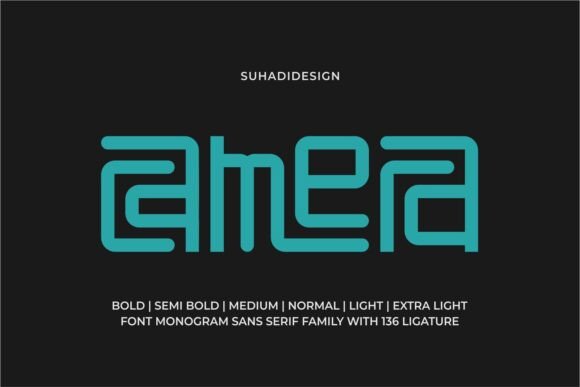
Introducing Camera Font: The Modern Sans Serif Font for Stunning Designs
In the world of typography, fonts play a crucial role in making or breaking a design. A well-chosen font can elevate a design from ordinary to extraordinary, while a poorly chosen one can have the opposite effect. For designers, artists, and brands looking for a modern and stylish font to take their designs to the next level, Camera Font is an excellent choice. In this article, we’ll explore the features, benefits, and uses of Camera Font, a modern sans serif font with 136 ligatures, presented in a modern monogram style.
What is Camera Font?
Camera Font is a modern sans serif font designed to be elegant, classy, and stylish. With its clean lines, simple shapes, and modern monogram style, this font is perfect for designers looking for a fresh and contemporary look. The font comes with 136 ligatures, which provide a wide range of creative possibilities for designers. Whether you’re working on a logo, label, poster, or banner, Camera Font is the right choice.
Key Features of Camera Font
- Modern Sans Serif Design: Camera Font boasts a modern sans serif design that is both elegant and classy.
- 136 Ligatures: The font comes with 136 ligatures, providing a wide range of creative possibilities for designers.
- Modern Monogram Style: The font is presented in a modern monogram style, making it perfect for logos, labels, and branding projects.
- Easy to Use: Camera Font is designed to be easy to use, making it accessible to designers of all skill levels.
Benefits of Using Camera Font
So, why should you choose Camera Font for your design projects? Here are some benefits of using this amazing font:
- Elevate Your Designs: Camera Font can help take your designs to the next level with its modern and stylish look.
- Perfect for Logos and Branding: The font’s modern monogram style and elegant design make it perfect for logos, labels, and branding projects.
- Versatile: Camera Font can be used for a wide range of design projects, including posters, banners, bags, and more.
- Easy to Read: The font’s clean lines and simple shapes make it easy to read, even at small sizes.
Use Cases for Camera Font
So, what can you use Camera Font for? The possibilities are endless! Here are some use cases for this amazing font:
- Logos and Branding: Use Camera Font to create stunning logos, labels, and branding materials.
- Posters and Banners: The font is perfect for creating eye-catching posters and banners.
- Fashion and Beauty: Camera Font is ideal for fashion and beauty brands looking for a modern and stylish font.
- Quotes and Typography: Use the font to create stunning quotes and typography designs.
Why Camera Font Stands Out
With so many fonts available, what sets Camera Font apart from the rest? Here are some reasons why Camera Font stands out:
- Unique Ligatures: The font’s 136 ligatures provide a unique and creative way to design.
- Modern Design: Camera Font’s modern sans serif design makes it perfect for designers looking for a fresh look.
- Elegant and Classy: The font’s elegant and classy design makes it perfect for high-end branding and design projects.
Tips for Using Camera Font
Here are some tips for using Camera Font to get the most out of this amazing font:
- Experiment with Ligatures: Take advantage of the font’s 136 ligatures to create unique and creative designs.
- Use it for Headings and Titles: Camera Font is perfect for headings and titles, making it ideal for posters, banners, and other design projects.
- Pair it with Other Fonts: Experiment with pairing Camera Font with other fonts to create stunning typography designs.
In conclusion, Camera Font is an excellent choice for designers looking for a modern sans serif font with a stylish and elegant design. With its 136 ligatures, modern monogram style, and easy-to-use design, this font is perfect for a wide range of design projects, from logos and branding to posters and banners. Whether you’re a professional designer or just starting out, Camera Font is sure to take your designs to the next level.